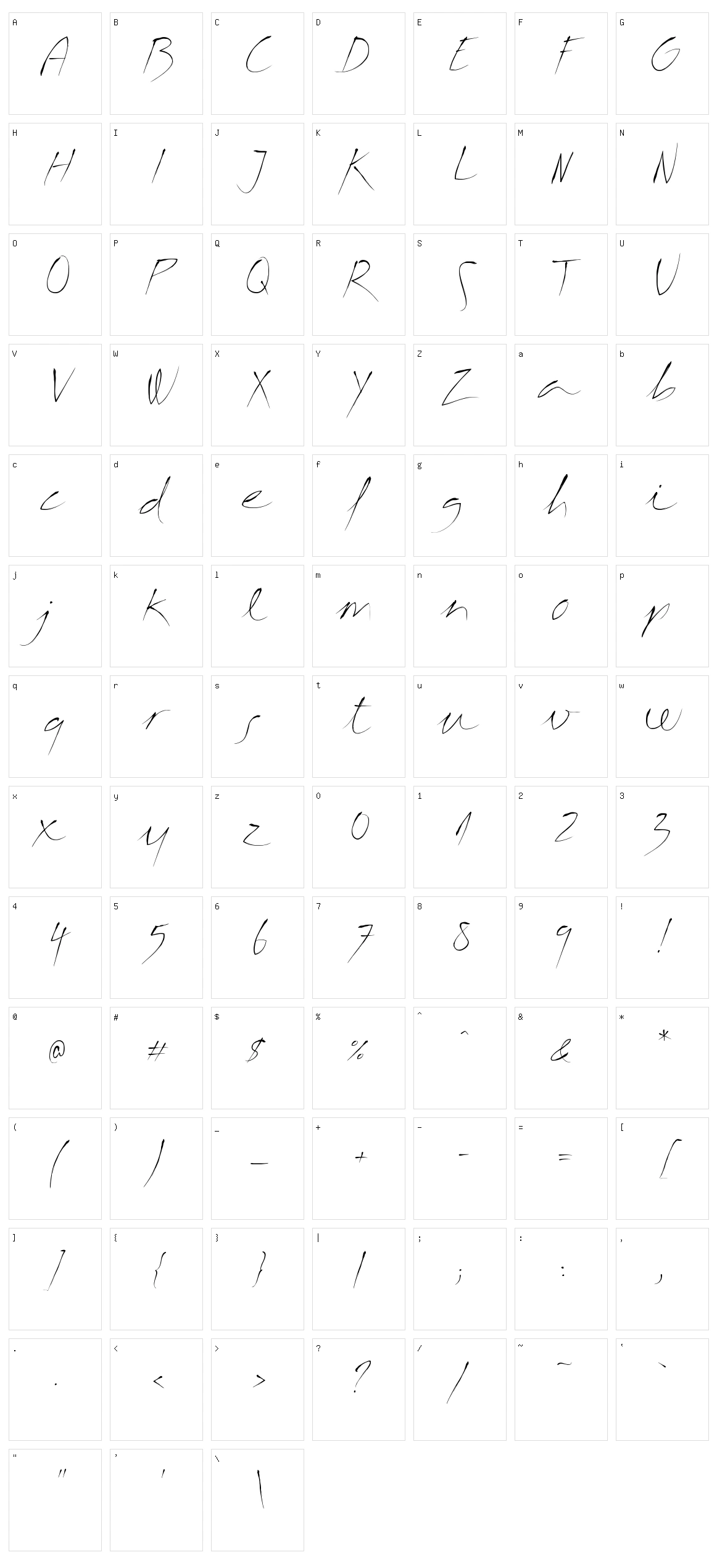
The free font Margalida is carefully designed by Mateu Riera, showcasing a thoughtful balance of creativity and usability and falls under the Script font style. When you download the ZIP file, it contains only 65.69 KB of font files, making it lightweight and quick to download. Please review the license details below to understand permitted usage and distribution rights. If license information is not available, we recommend using this font for personal projects only or contacting the author directly for commercial usage permissions.
MARGALIDA FONT
Created by Mateu Riera